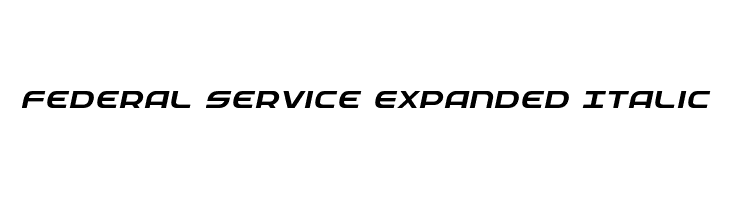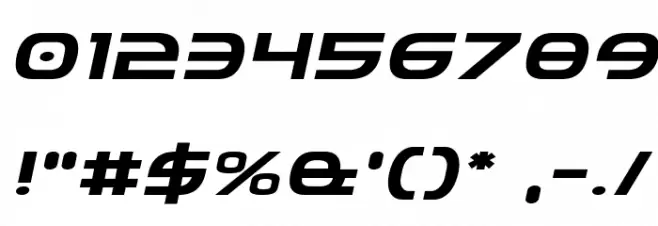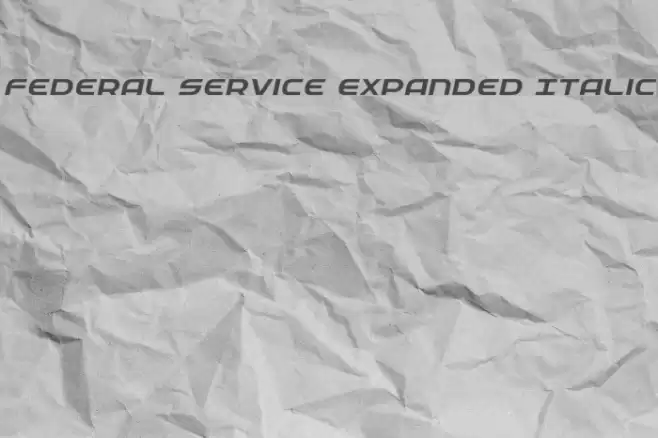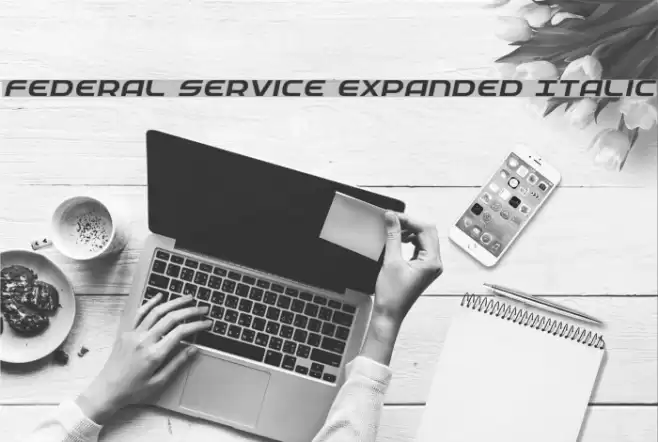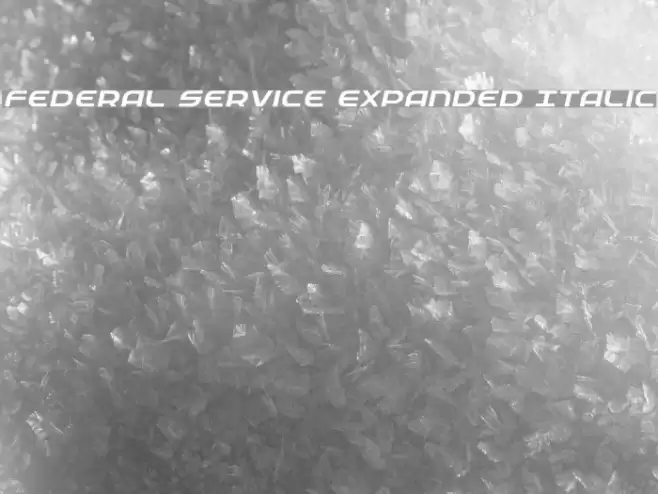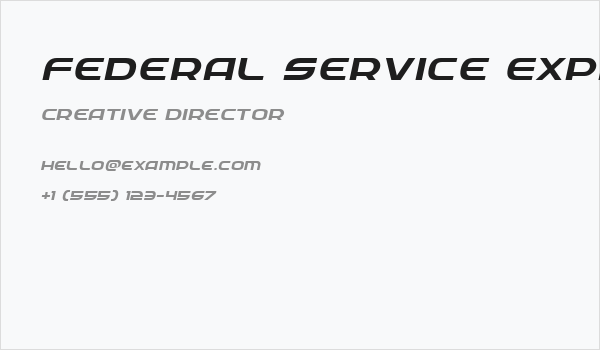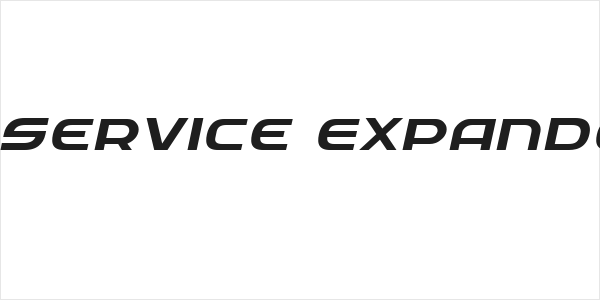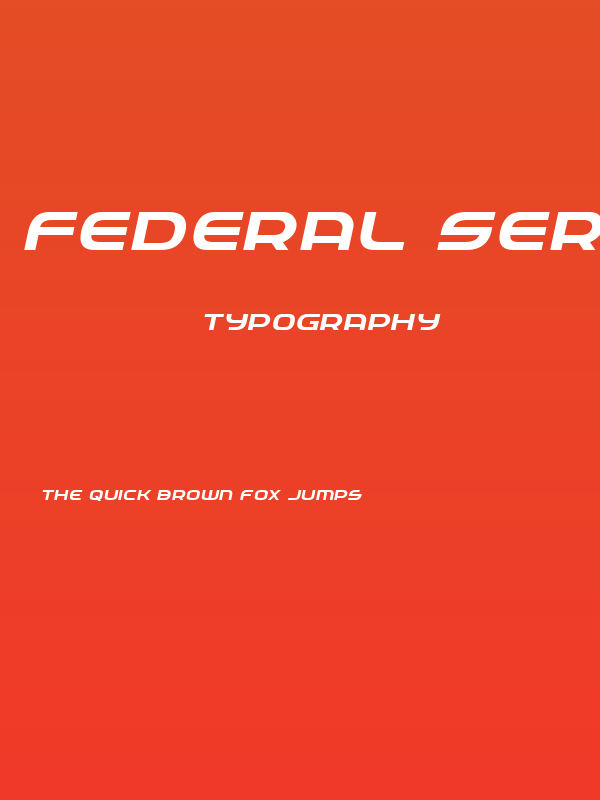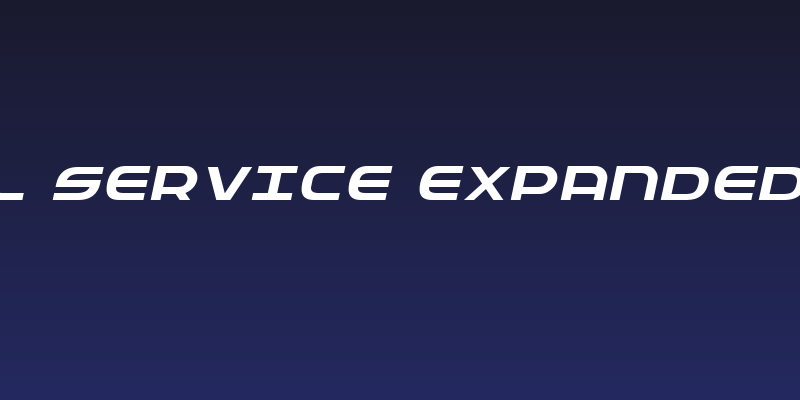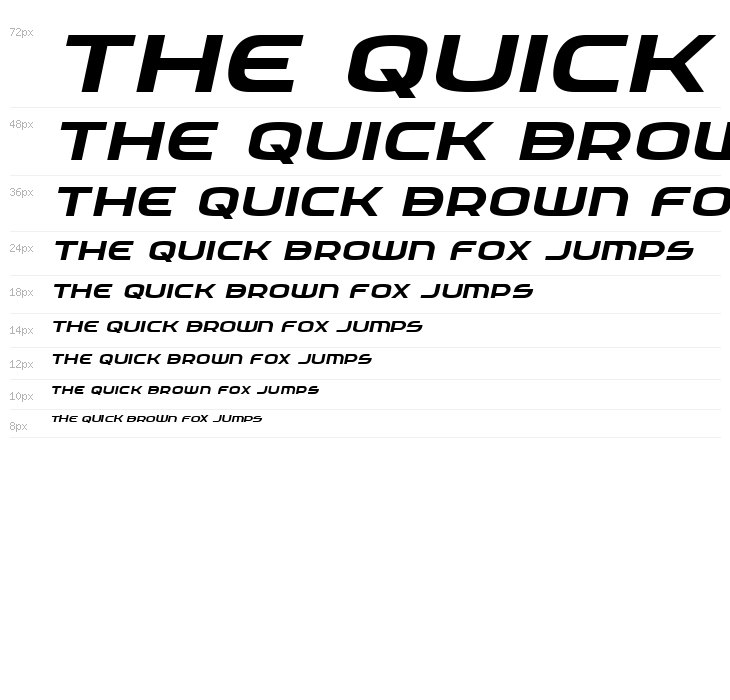
Federal Service Expanded Italic Font
Federal Service Expanded Italic Description
This font exhibits a modern and sleek design with an expanded and italicized style. The characters are slightly slanted, giving a dynamic and forward-moving appearance. The strokes are consistent in thickness, providing a uniform look across all characters. The expanded width allows for a more open and airy feel, making it suitable for various design applications. The font maintains a clean and professional aesthetic, ideal for contemporary projects.
| Use Case | Headlines, Logos, Digital Media |
| Proposed Projects | Ideal for branding, advertising, and digital media projects that require a modern and professional look. Suitable for headlines, posters, and logos. |